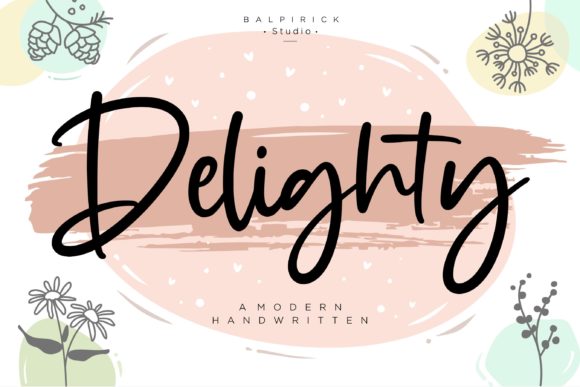
Delighty: The Font That Elevates Your Campaigns
It was a typical morning in the world of digital marketing—emails pinging, project timelines looming, and the pressure to create something fresh and engaging. I was finalizing the visuals for a new product launch, and as I previewed the latest social media post on my phone, I paused. The text looked off. It wasn’t just the color or the layout—it was the font. It felt too generic, too safe, like it didn’t speak to the brand’s personality. That’s when I remembered Delighty.
A Font with Personality
Delighty is more than just a script font—it’s a statement. Created with a touch of elegance and a whisper of charm, this handwritten typeface brings warmth and sophistication to any design. Its flowing lines and subtle flourishes make it ideal for branding that wants to feel personal and authentic. Whether you're crafting an Instagram post or designing a calligraphy-style banner, Delighty adds a layer of visual storytelling that feels both modern and timeless.
As a marketing specialist, I’ve seen how the right font can transform a campaign. Delighty isn’t just decorative; it’s functional. It works well with short headlines, callouts, and even logo-style text. When used strategically, it helps reinforce brand identity while maintaining readability across different platforms.
From Concept to Campaign
This particular campaign was for a seasonal sale, and we wanted to capture the essence of celebration and exclusivity. We needed a font that could convey both energy and refinement. That’s where Delighty came in. I paired it with a clean sans serif font for contrast, ensuring the message was clear and impactful. The result? A set of social media graphics that felt cohesive, elegant, and ready for the feed.
Using Delighty in our Instagram posts and YouTube thumbnails gave the campaign a distinct visual identity. The font’s fluidity worked beautifully with the product images, making the text feel like part of the design rather than an afterthought. It also helped us stand out in a crowded feed, where attention spans are fleeting and first impressions matter.
Readability Matters
One of the biggest challenges with script fonts is readability, especially on mobile screens and small previews. I always test fonts in different environments to ensure they work across all devices. Delighty performed exceptionally well. Even at smaller sizes, its legibility remained intact thanks to its balanced spacing and clear letterforms.
I also tested it against dark and light backgrounds, and it held up nicely in both scenarios. On dark backgrounds, the white text stood out, while on lighter backgrounds, the slightly darker tones added depth. This versatility makes Delighty a great choice for digital ads, website banners, and email headers—places where clarity is key.
Font Pairing & Brand Consistency
When pairing Delighty with other fonts, I focused on creating a balance between style and function. For example, I used it alongside a modern sans serif font like Montserrat for headings and labels. This combination allowed the campaign to maintain a professional tone while still feeling creative and approachable.
For promotional content sets, I made sure to use Delighty consistently across all materials—social media posts, web banners, and even branded templates. This helped reinforce brand recognition and ensured a unified look throughout the campaign.
Practical Considerations
Before using Delighty in client campaigns or digital products, I always check the included styles, alternates, ligatures, weights, and file formats. It’s important to know what options are available to adapt the font to different design needs. Delighty offers a range of weights and styles, making it adaptable for various uses—from display text to supporting typography.
Additionally, I verified that it supports multilingual characters and has commercial font licensing, which is essential for use in ads, merchandise, and branded content. These details help ensure that the font remains a reliable asset in any marketing toolkit.
Real-World Applications
Delighty has been used in a variety of real-world applications. From webinar banners and course launches to online shop promotions and branded content series, its versatility shines through. One of my favorite uses was in a quote graphic for a blog post. The font’s elegance complemented the message perfectly, adding a sense of sophistication that aligned with the brand’s voice.
For Pinterest pins and YouTube thumbnail sets, Delighty helped create a consistent aesthetic that resonated with the target audience. It worked especially well for seasonal campaigns, where the goal was to evoke emotion and urgency without being overwhelming.
Designing with Purpose
Every time I use Delighty, I think about the message I want to convey. It’s not just about aesthetics—it’s about communication. The font’s personality aligns with brands that value creativity, craftsmanship, and a touch of whimsy. Whether it’s a product teaser or a sale announcement, Delighty helps turn words into something memorable.
As a marketer, I know that the right font can make all the difference. It can influence first impressions, guide the viewer’s eye, and even shape their perception of the brand. With Delighty, I’ve found a font that does all of that and more.